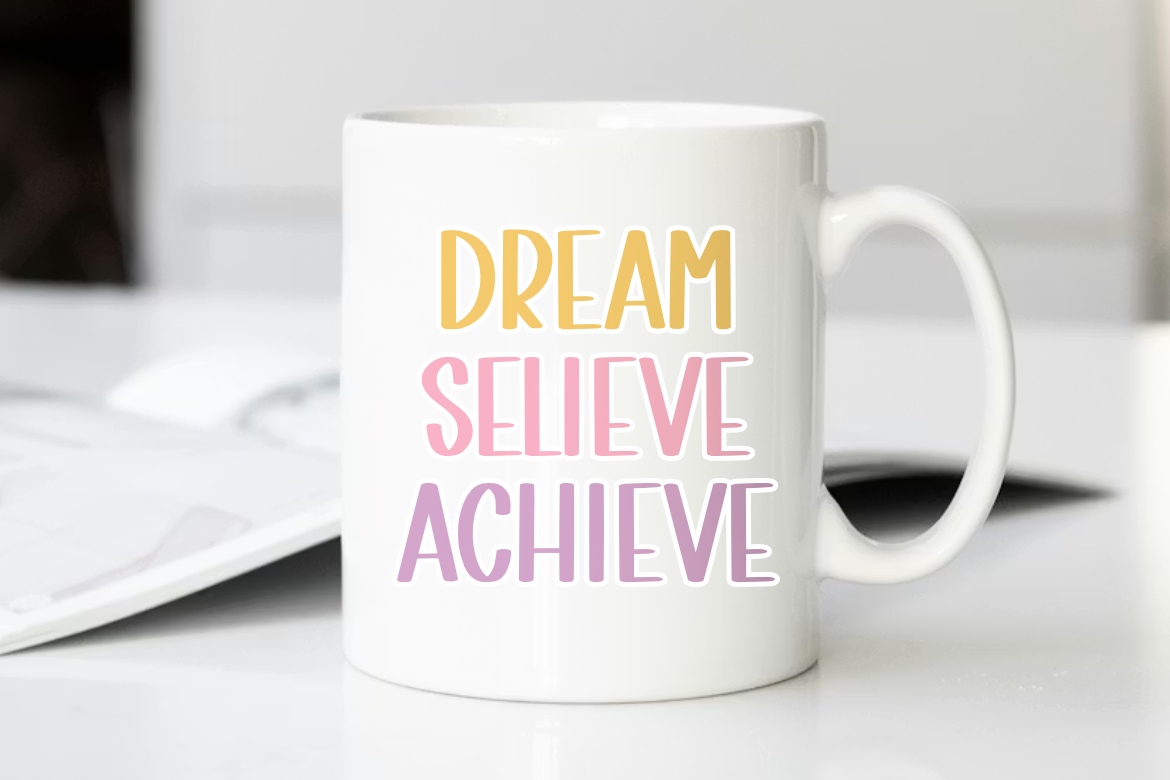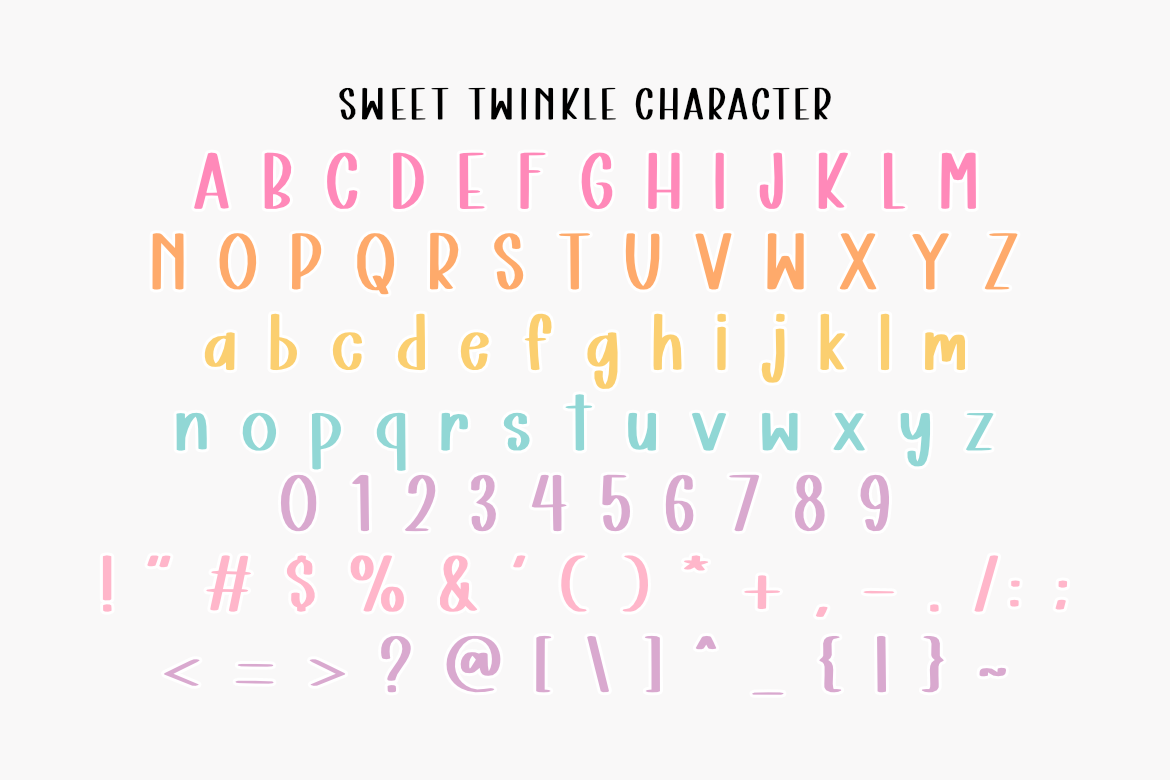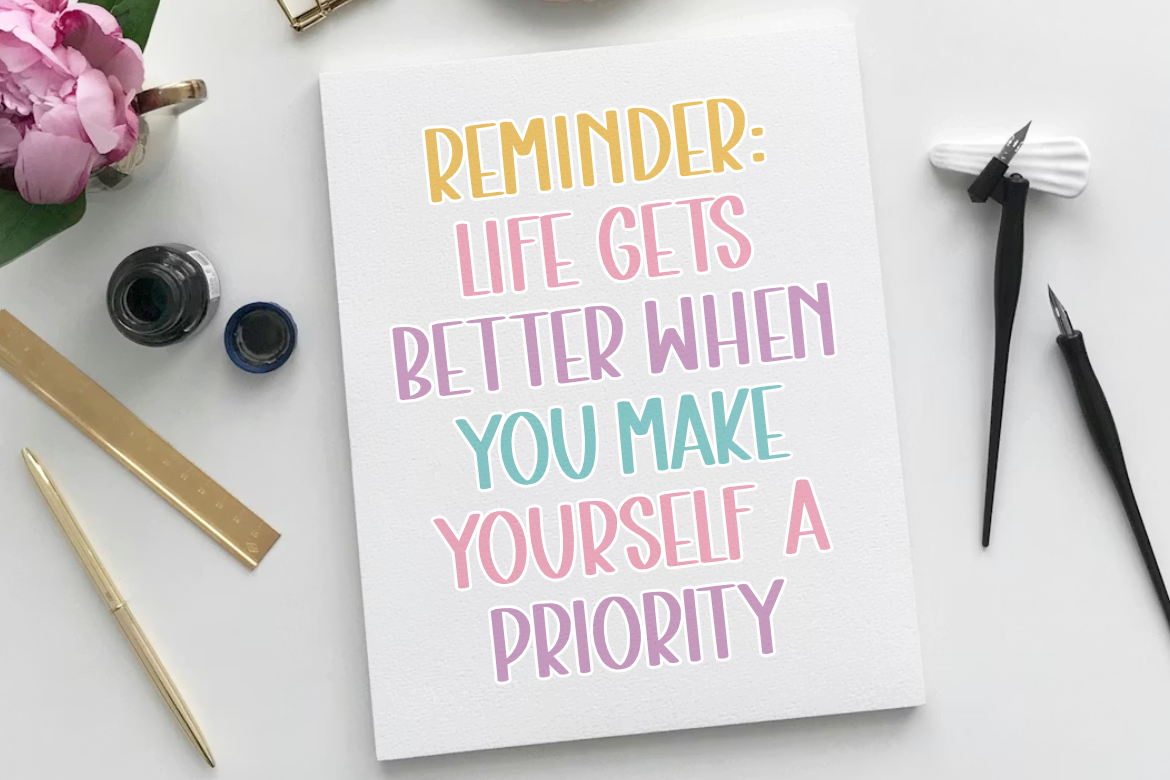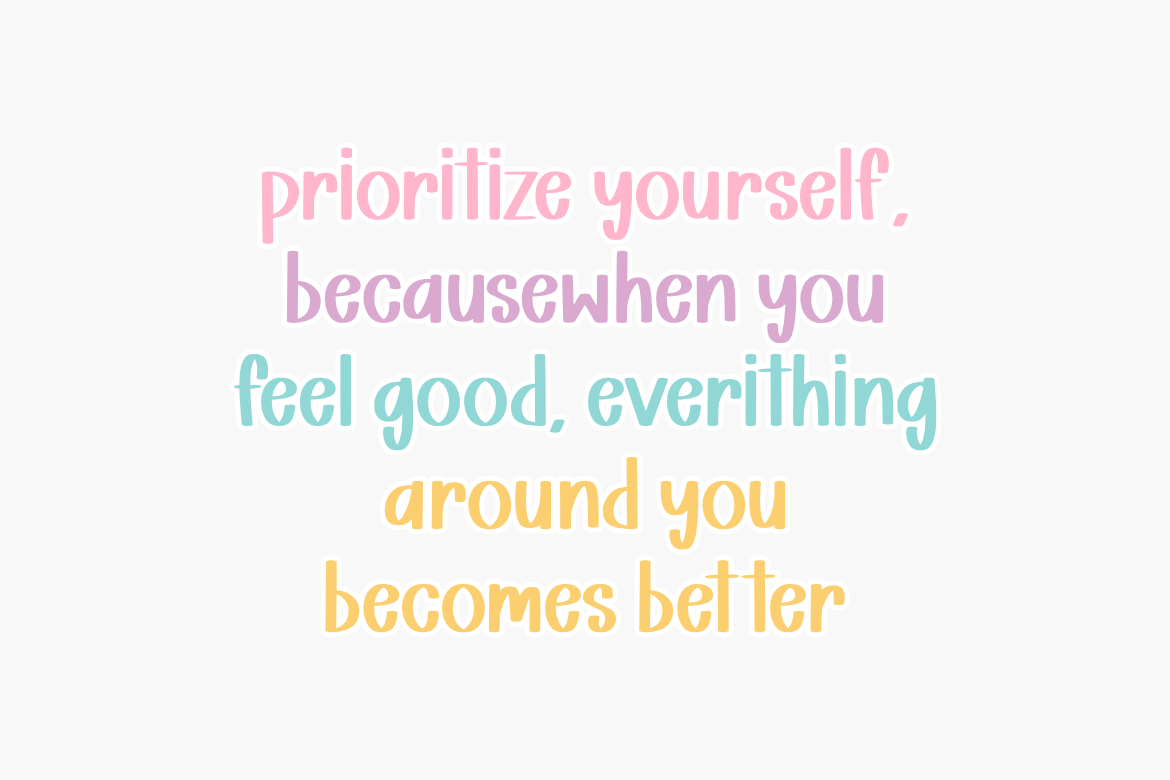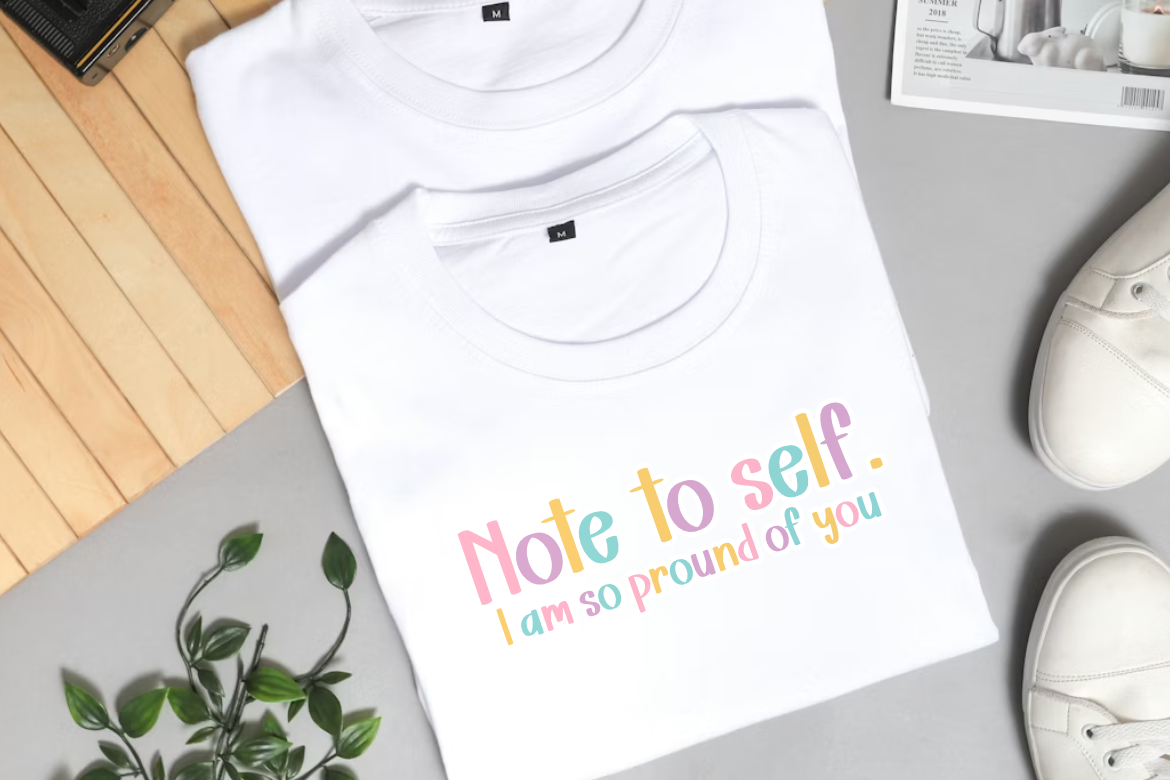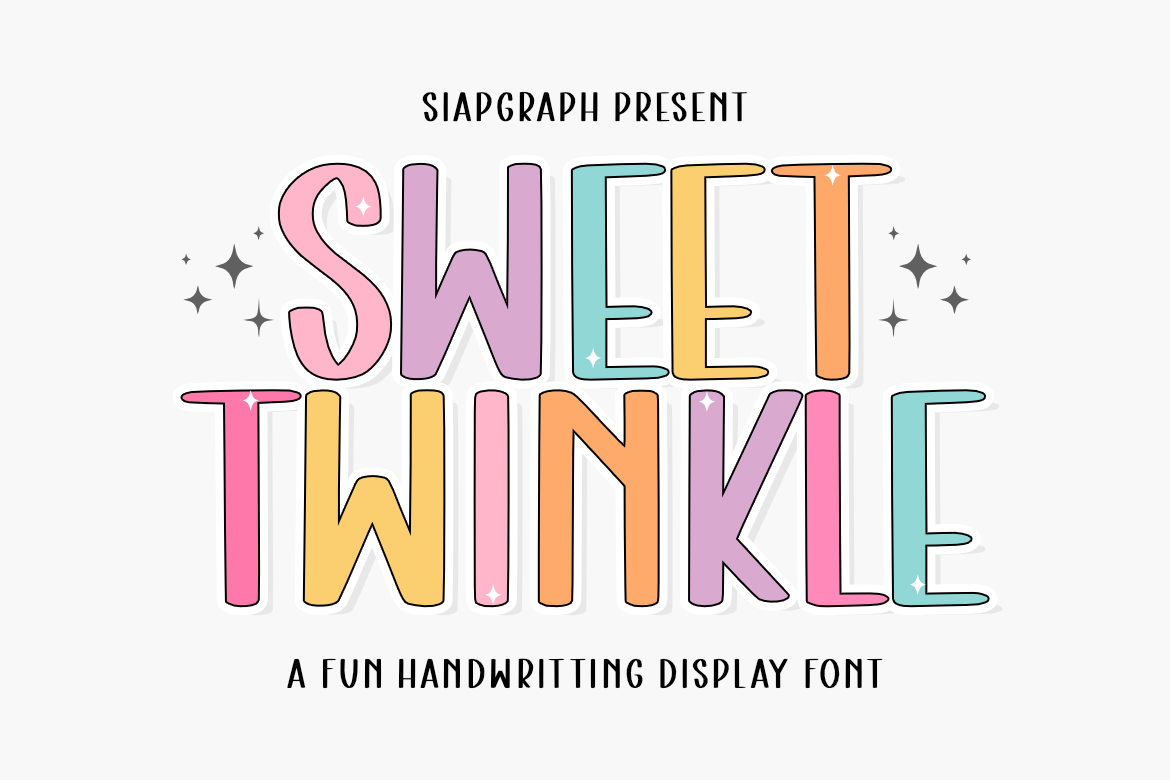
Sweet Twinkle - Fun Handwritting Font for Cricut and Sublimation
Bring your ideas to life with Sweet Twinkle, a charming and cute handwriting display font that exudes playfulness! Its soft curves and bold appearance are perfect for creating eye-catching headlines, posters, social media graphics, and branding. Add a dreamy touch to your designs with this delightful font that’s both fun and versatile.